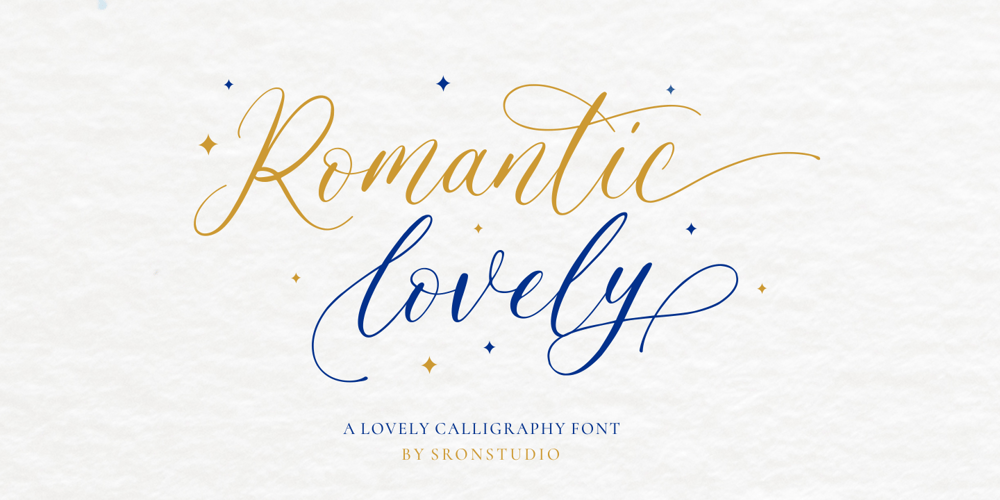
Romantic Lovely Font Family was designed by Muhamad Yusron Billah and published by Sronstudio. Romantic Lovely contains 1 styles and family package options. Romantic Lovely � Calligraphy Font with lots of alternate swashes. This font will perfect for adding a romantic and lovely touch to your design.Features: Uppercase and lowercase letters Swash alternates ( Beginning, Middle, Ending ) -Multilingual symbols, numerals, and punctuation How To Access Alternate Swashes?You can read this article: https://helpx.adobe.com/illustrator/using/special-characters.htmlFollow Instagram: @sronstudioThank You!